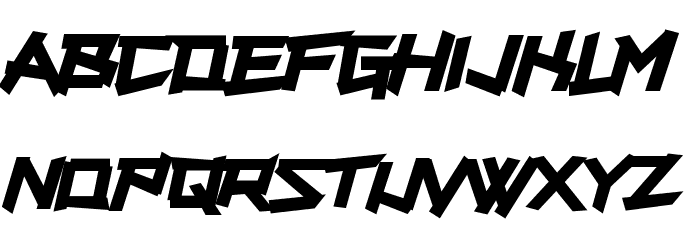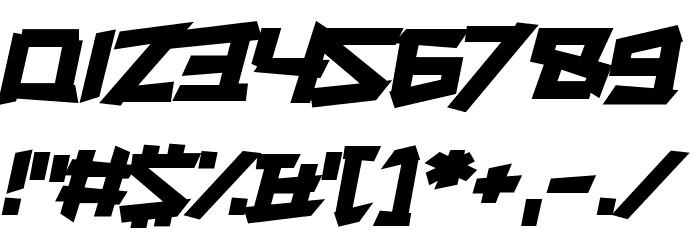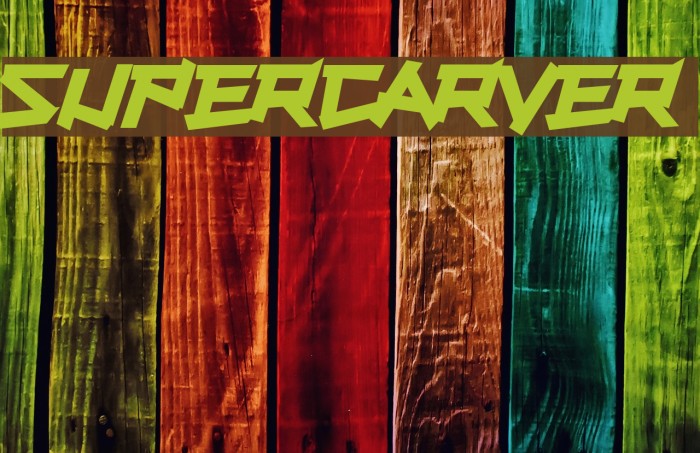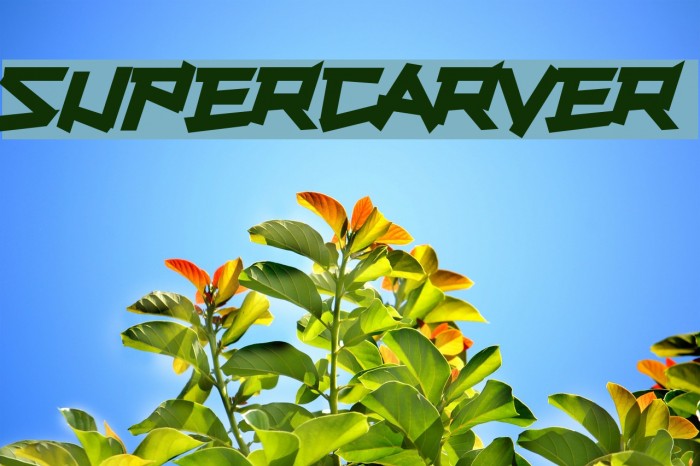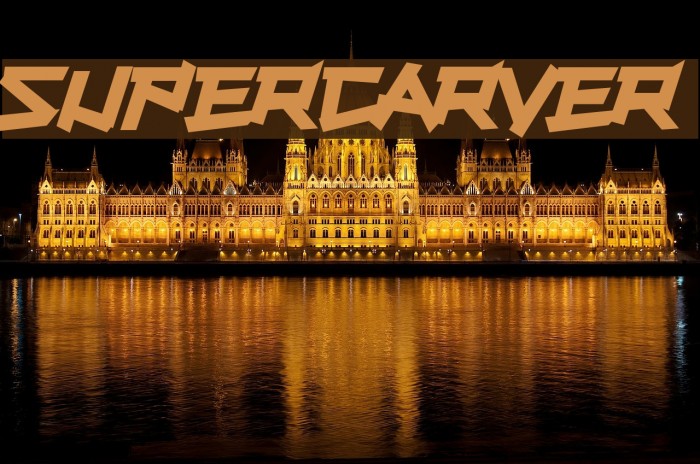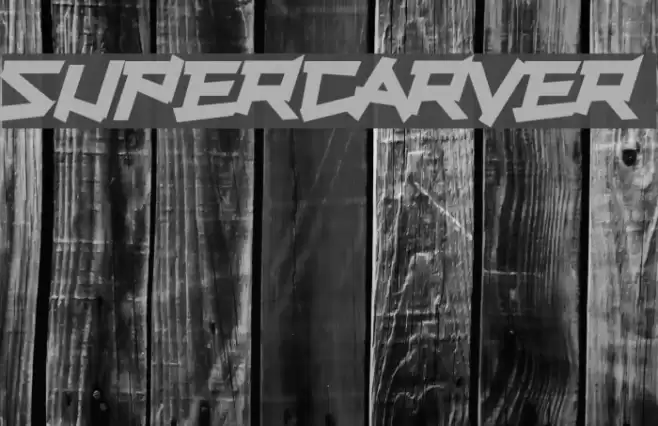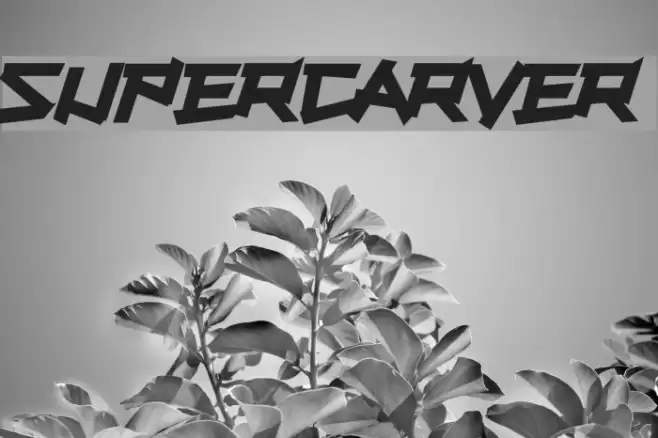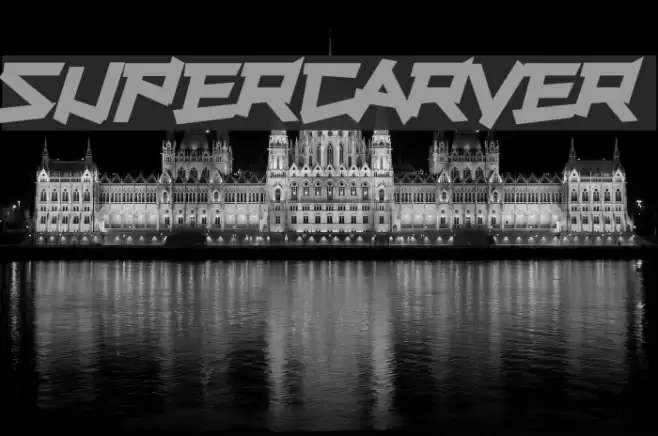
Supercarver Font
This font features a bold, angular design with a dynamic and edgy appearance. The characters are sharply cut with a distinct slant, giving them a sense of motion and energy. The uppercase and lowercase letters maintain a consistent style, with exaggerated angles and a slightly condensed form. Numbers and special characters follow the same bold and aggressive style, making the font suitable for attention-grabbing designs. The overall look is modern and futuristic, ideal for projects that require a strong visual impact.
A bold, angular font with a dynamic and edgy style.
- Proposed Projects: Ideal for sports branding, video game titles, automotive advertisements, and any project needing a bold, modern look.
- Character Spacing: Tight